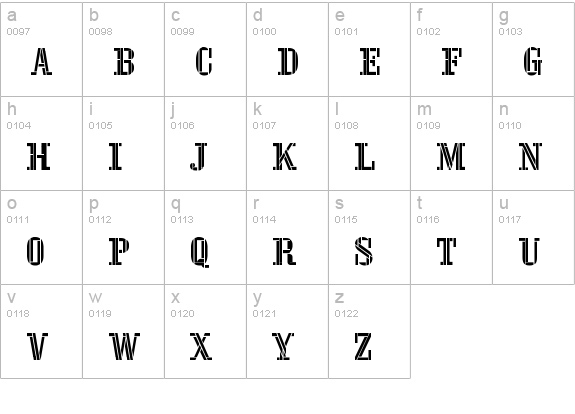
Oaktag Regular Font Details
Oaktag Regular is the standard, neutral variant in the Oaktag typeface family \xE2\x80\x94 well suited to general body text, paragraphs, and standard typographic work.
Oaktag Regular is a classic and versatile font that exudes elegance and simplicity. With its clean lines and balanced proportions, this typeface is perfect for a wide range of design projects, from logos to invitations to website headers. The timeless appeal of Oaktag Regular makes it a staple in any designer's toolkit. What's even better is that Oaktag Regular is available for free download at FontsMarket.com. This means you can start using this beautiful font in your projects right away, without any cost. So go ahead and add Oaktag Regular to your font collection today and elevate your designs with its timeless charm and versatility.